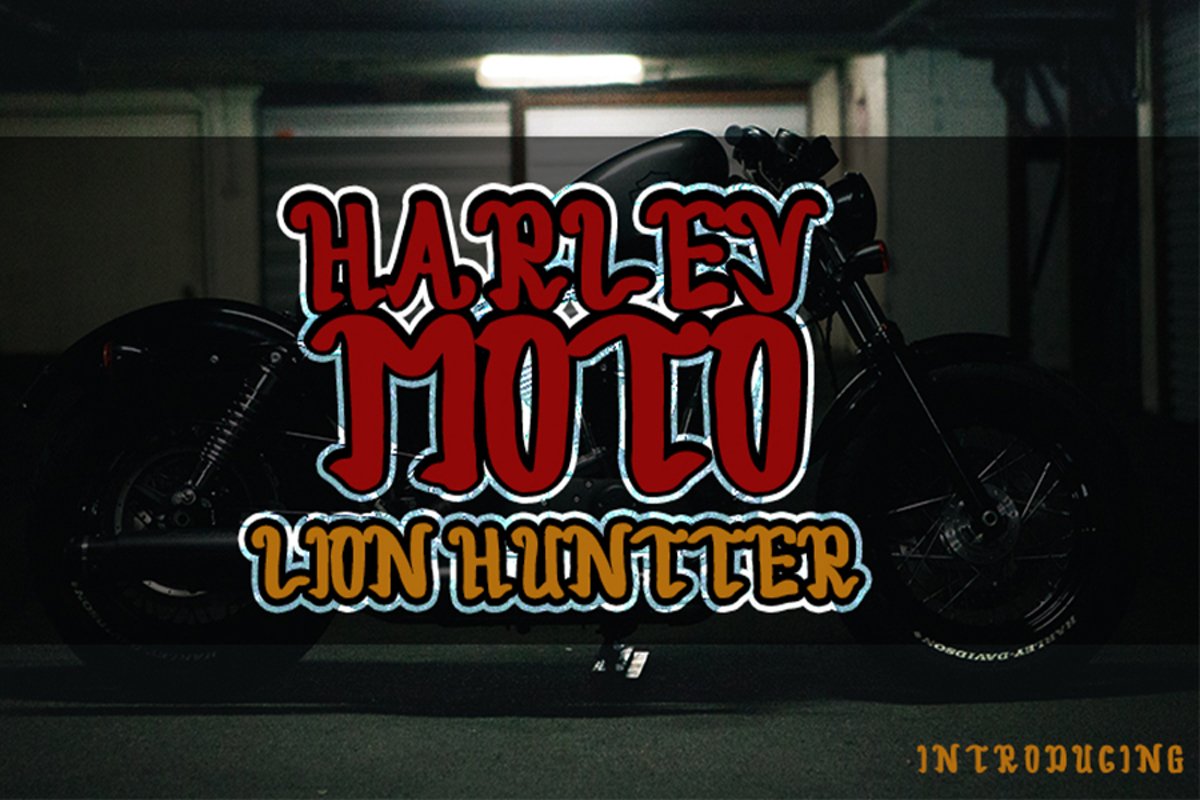
Harley Moto
Harley Moto embodies fun, quirkiness and authenticity. This enchanting handwritten font will turn any creative idea into a true standout.